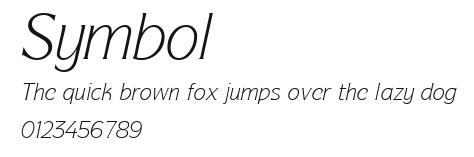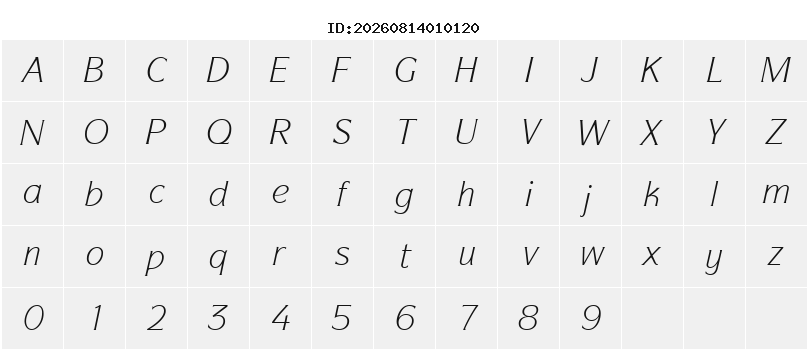
• Font Name: Symbol
Symbol.ttf is a modern, elegant sans-serif font designed for ultimate readability and visual harmony. Perfect for branding, headlines, web design, and print materials.